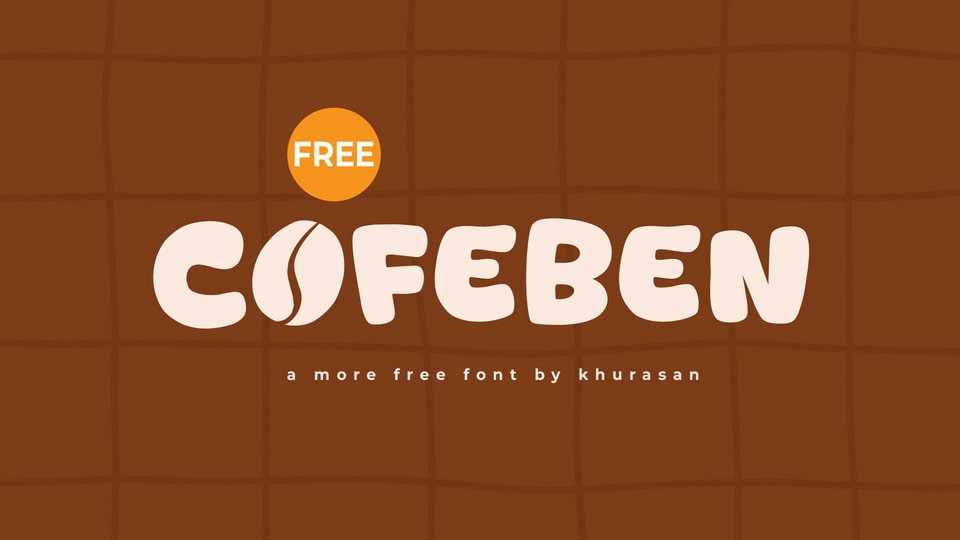
Download Cofeben font, a warm and playful display typeface brewed to perfection. With its soft, rounded letterforms and a charming coffee bean detail nestled inside the “O,” Cofeben brings a cozy café vibe to your design work.